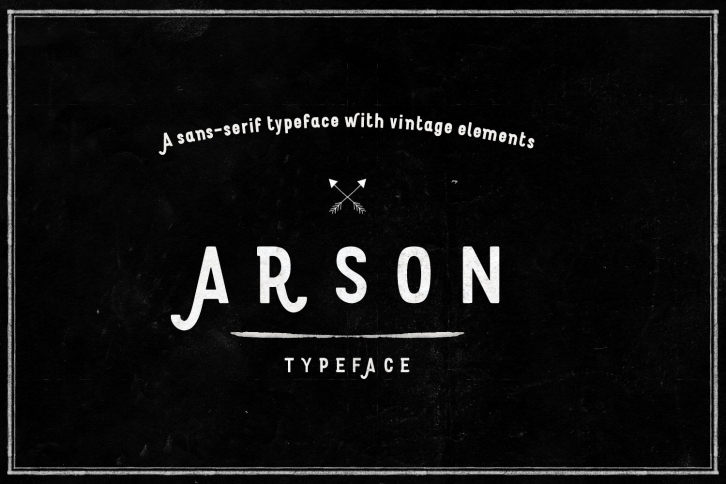
Arson Typeface is a beautiful font that was designed by VladyslavDerkach. It's a great choice for designers and creatives who need such a font. It was released on February 27, 2017 and the file size is 3.82 MB. Arson Typeface may give a more youthful, expressive and casual look to your project. It is a very beautiful, refined, elegant, and high-quality font.